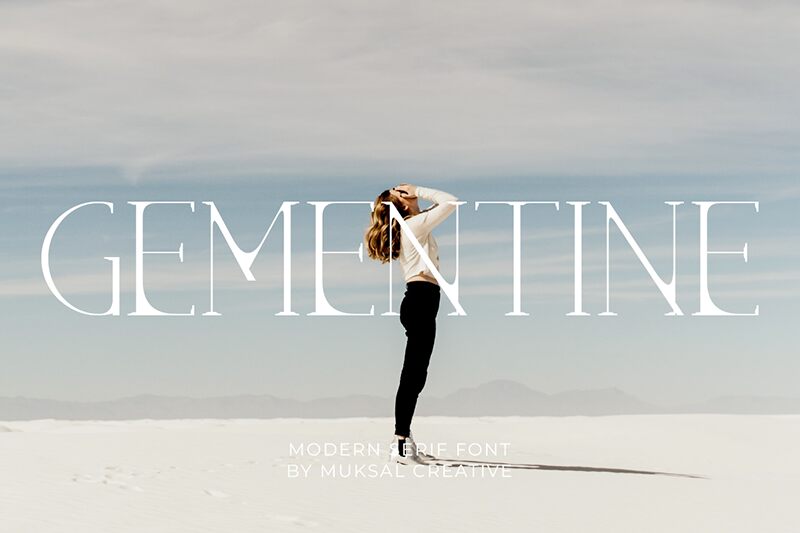
Gementine font is a refined serif typeface designed by Muksal Creative as a free font for personal use. The font is built around contemporary aesthetics, but its design choices lean into historical influences for sophistication. Its slim characters have the perfect thickness to create alignment and contrast without compromising readability, borrowing modern features for improved versatility.
Pairing this font with others becomes an easy task when you choose it for your projects, whether it be an educational novel or an informative magazine. This versatile serif should be your go-to when you’d like a professional facade for luxurious, high-end branding design projects.
It would work for a wide range of projects in different industries, ranging from banking and fashion to entertainment. Choose it for your corporate identity package design, promotional print designs, social media, and so many others.